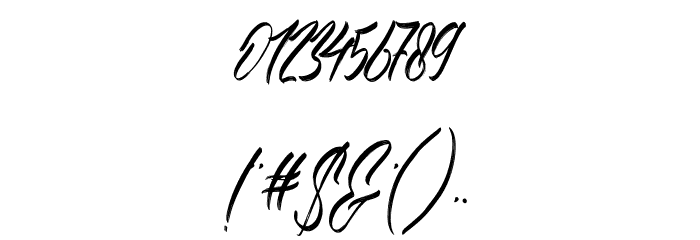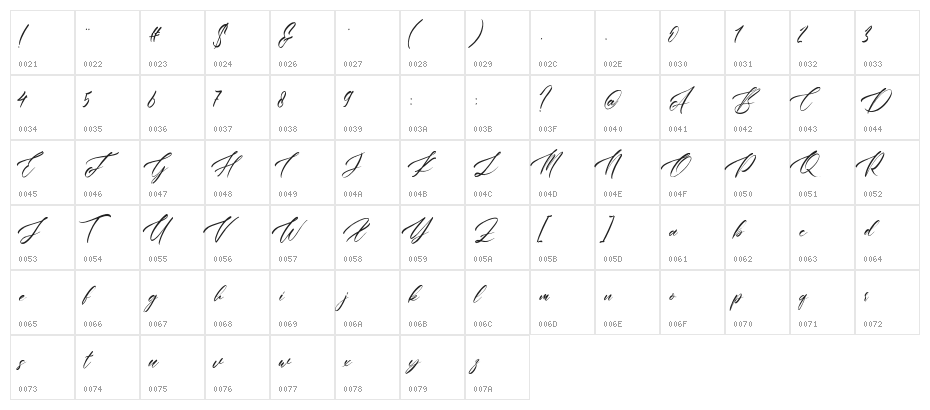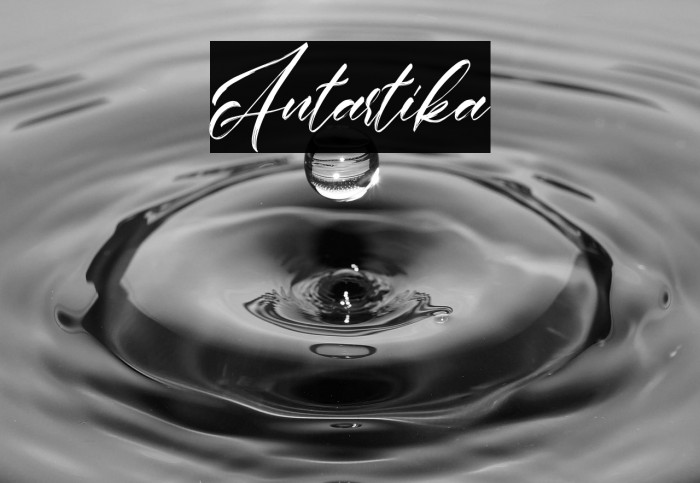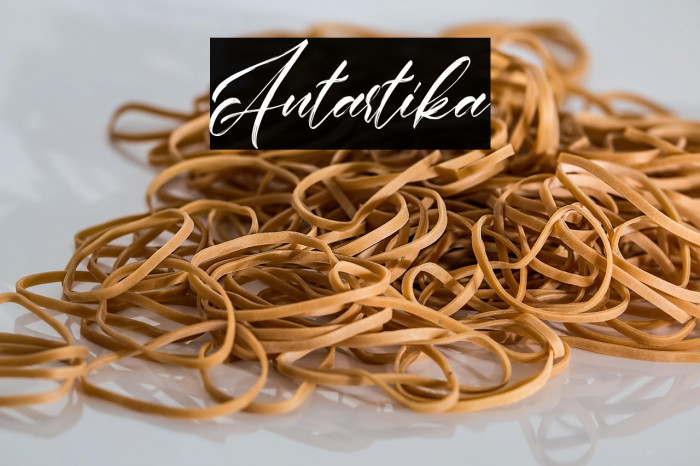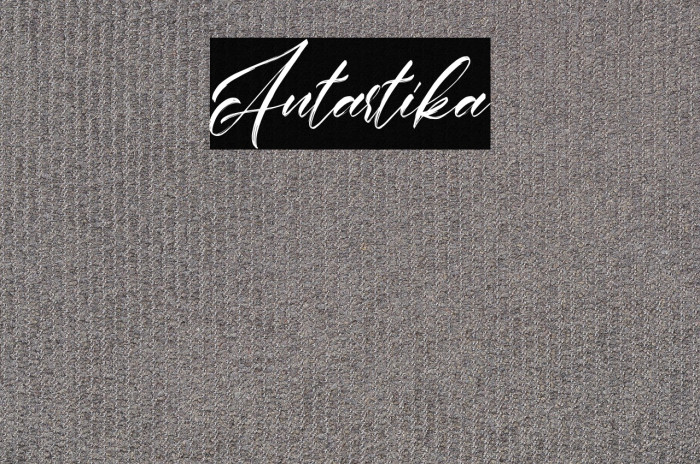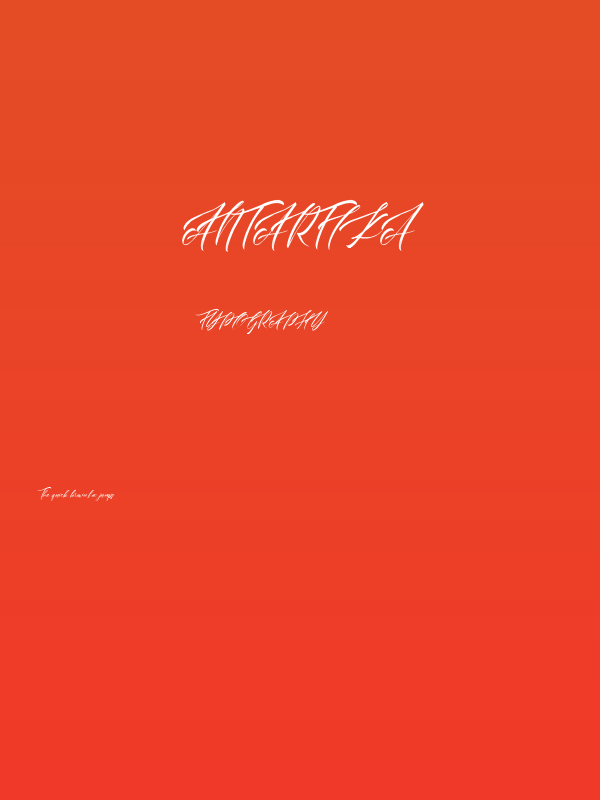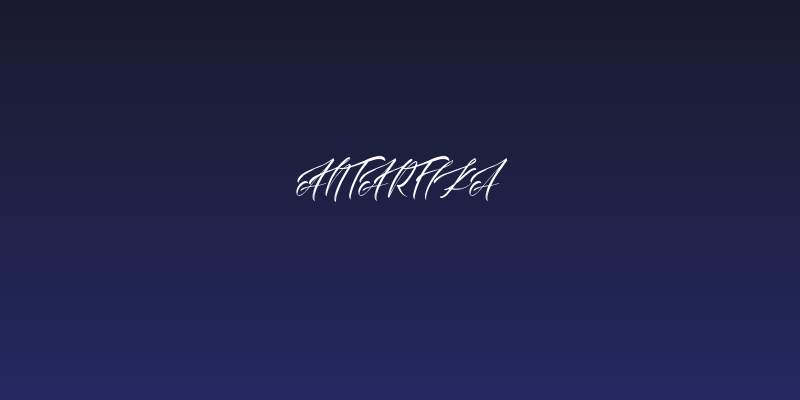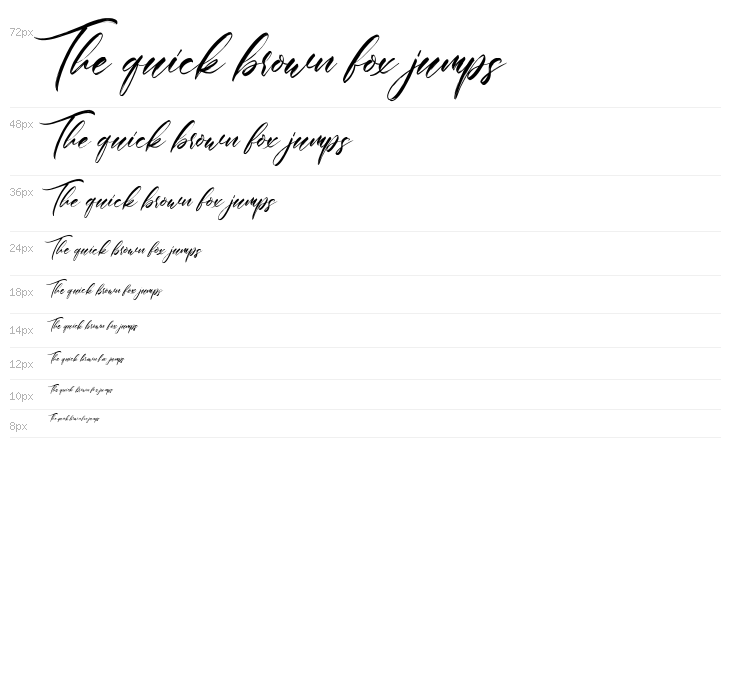
Antartika Font
Antartika Description
This font features an elegant and flowing script style, characterized by its smooth, cursive strokes and artistic flair. The uppercase letters are bold and sweeping, with intricate loops and flourishes that give a sense of movement and grace. The lowercase letters maintain a consistent style, with a slightly more restrained design that complements the uppercase. Numbers and special characters are crafted to match the overall aesthetic, ensuring a cohesive look across all text. The font's design is both sophisticated and expressive, making it ideal for creative and decorative applications.